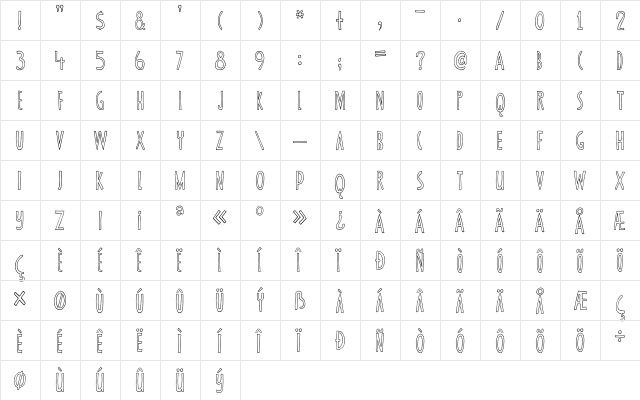
DK Canned Whale Regular
| Foundry | David Kerkhoff |
| Designer | David Kerkhoff |
Design Context for DK Canned Whale Typeface
DK Canned Whale offers clean, dependable letterforms without strong stylistic allegiance, making it a practical choice for designers who need flexibility.